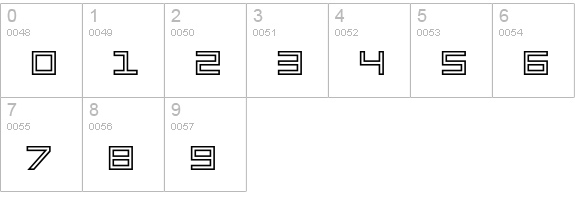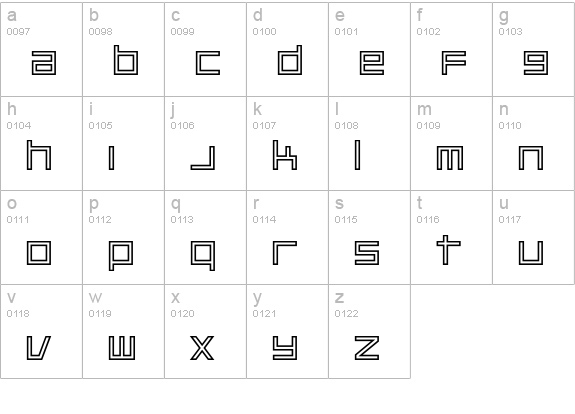
Platinum Beat BTN Outline font is a sleek and modern typeface that exudes sophistication and style. Its sharp lines and contemporary design make it perfect for a wide range of projects, from branding to marketing materials. The outline style adds a unique touch to any text, making it stand out and demand attention. And the best part? Platinum Beat BTN Outline font is completely free! You can easily download it from FontsMarket.com and start using it in your projects right away. Whether you're working on a website, a flyer, or a logo, this font is sure to elevate your design and leave a lasting impression. Don't miss out on the opportunity to enhance your work with this stunning typeface that is both elegant and modern. Download Platinum Beat BTN Outline font today and take your design to the next level!